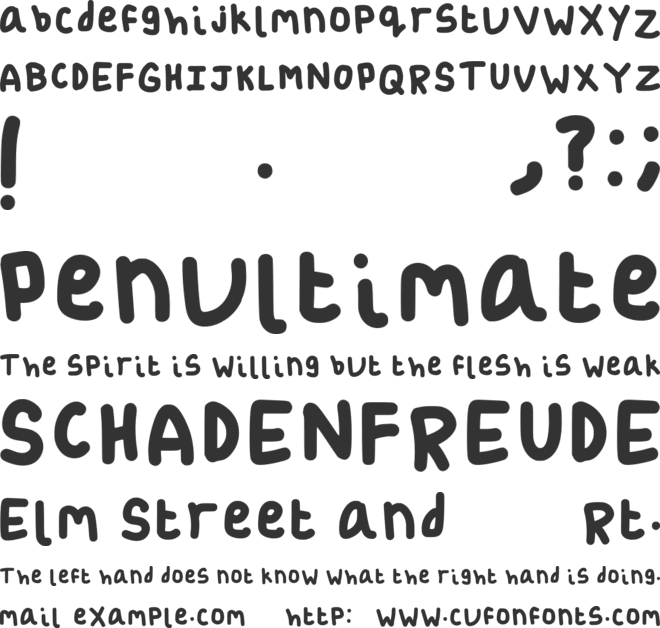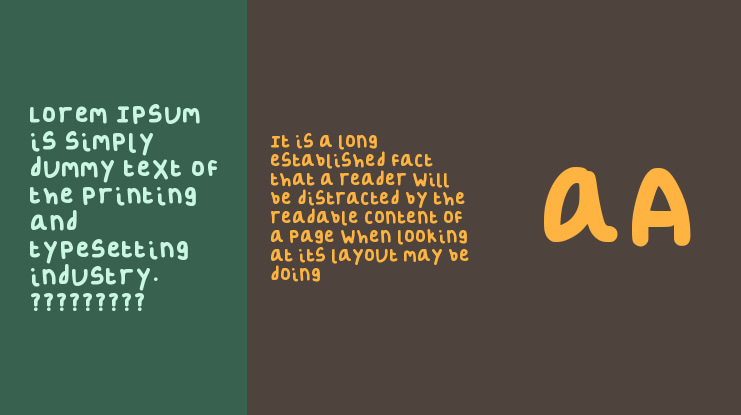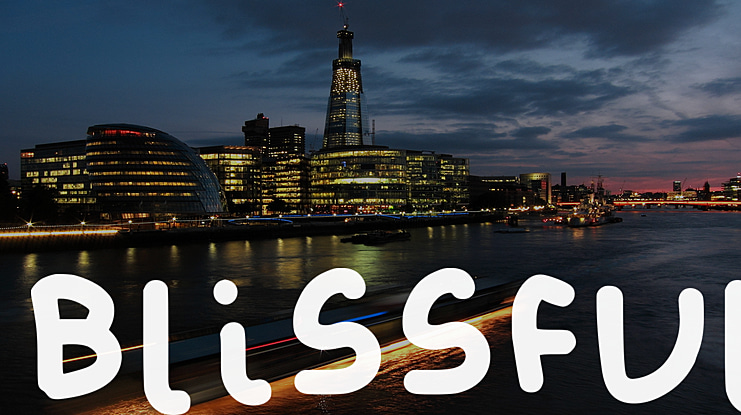
Blissful Font
Hey! I made this font because I wanted a cartoon font that I could use for my graphic designing. You may use this for your own personal use!